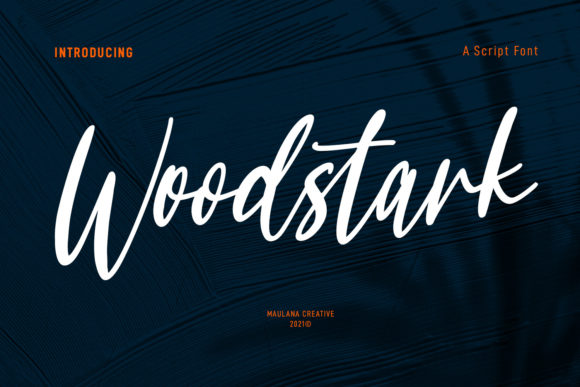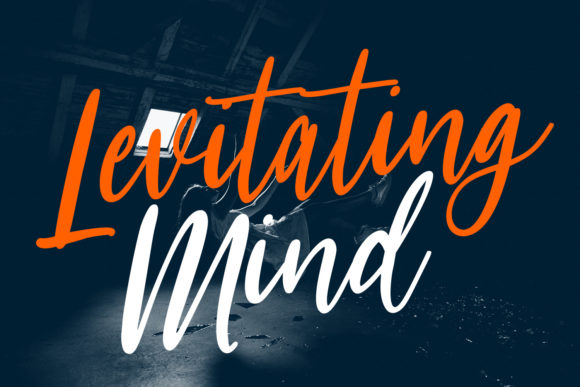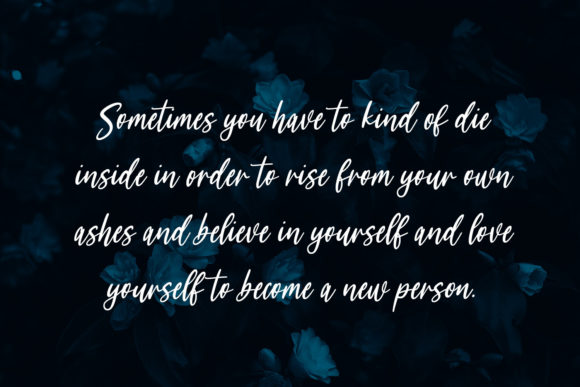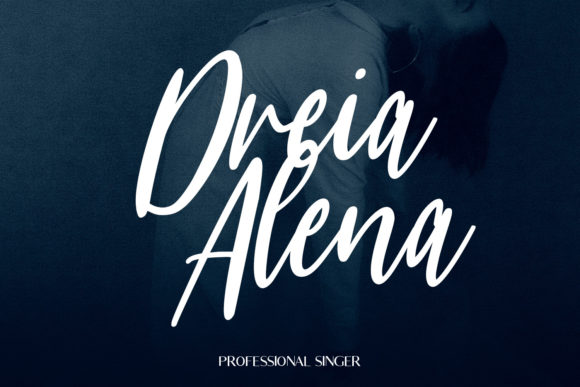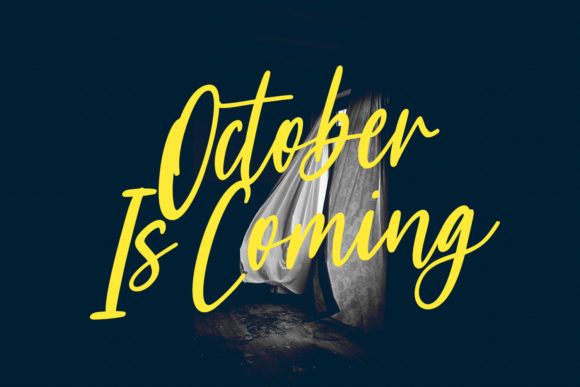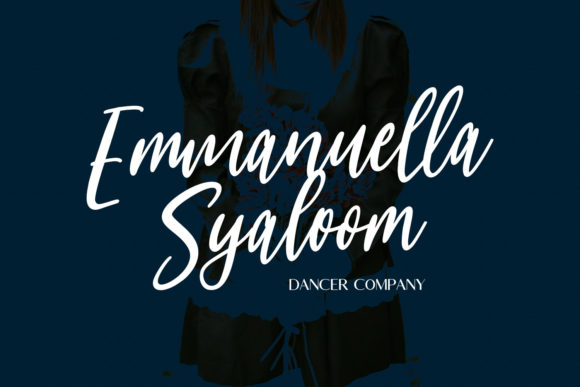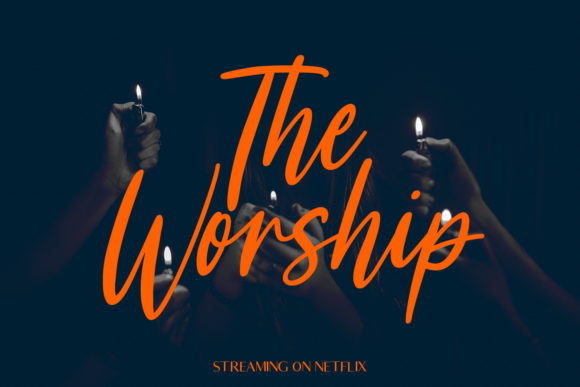
Woodstark Script Font
About Woodstark Script Font
Woodstark Script is a stylish and brushed script font. It looks stunning on wedding invitations, thank you cards, quotes, greeting cards, logos, business cards and every other design which needs a handwritten touch.